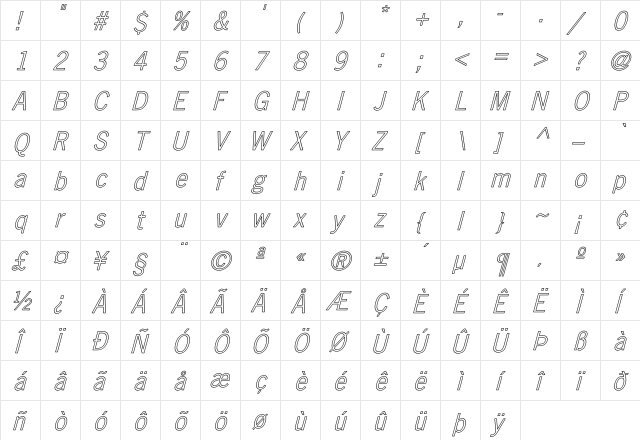
NewsGothic Hollow Italic Italic
Design Context for NewsGothic Hollow Italic Typeface
NewsGothic Hollow Italic has the quiet confidence of well-executed sans-serif typography: versatile, unobtrusive, and dependable at any size. The dynamic lean of this cut emphasises speed and emphasis in any layout.
Font Pairing: Works well alongside a characterful serif or display font that can carry the expressive load while NewsGothic Hollow Italic handles the functional copy.
Pro Tip: Pair NewsGothic Hollow Italic with a display or serif font for headlines — its neutral character makes it an excellent supporting player in complex typographic systems.